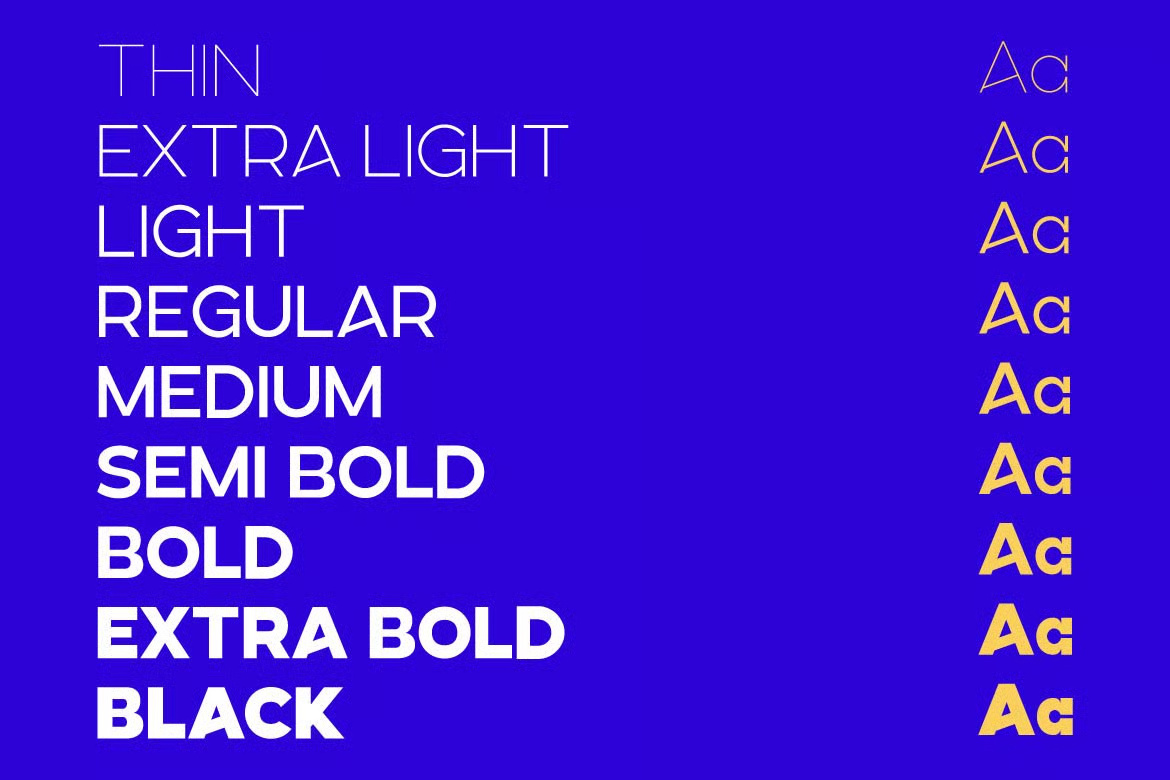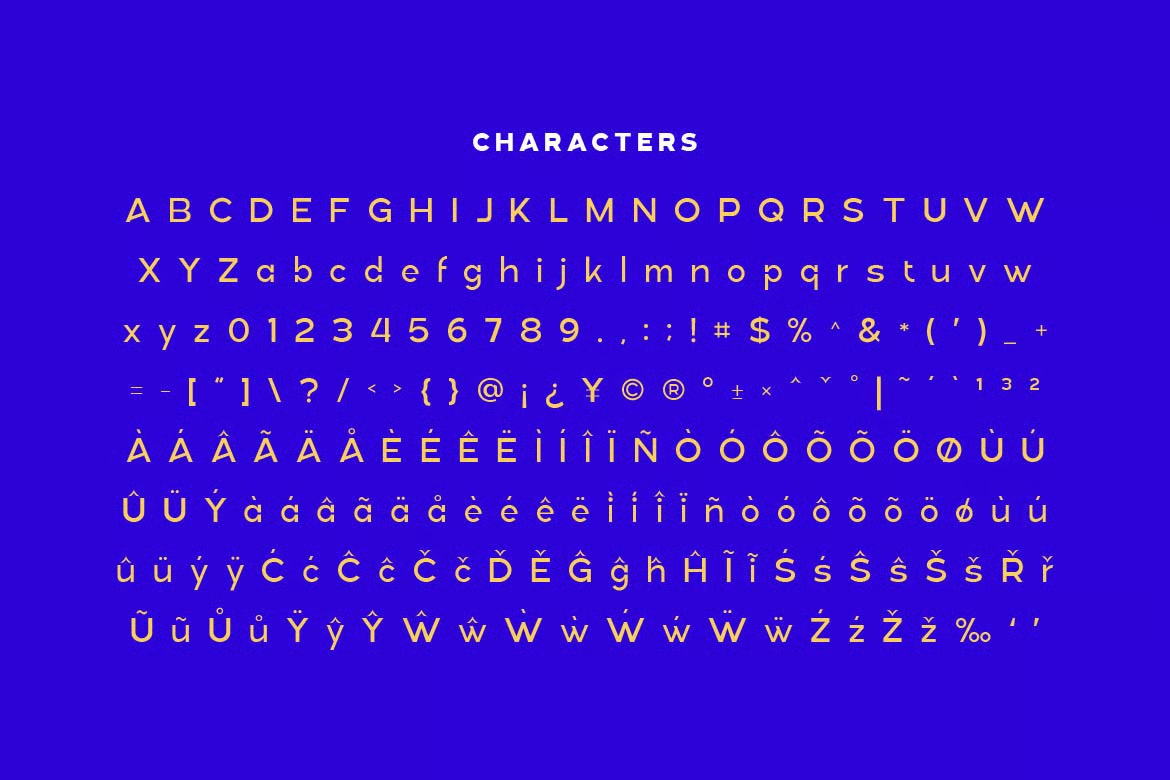
Linea Nova Sans Serif Family is a sleek and modern typeface designed with simplicity and clarity in mind. Featuring clean lines, balanced proportions, and a minimalist aesthetic, Linea Nova offers excellent readability and a professional appearance across various media. Its versatility makes it ideal for posters, social media graphics, branding, editorial layouts, website headers, personal design projects, and more.
Whether you’re crafting a bold headline or subtle body text, this font family adapts effortlessly to both print and digital platforms, delivering a refined yet contemporary look.